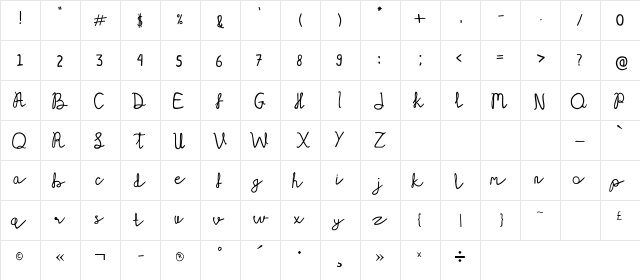
Serelo Perdana Regular
Design Context for Serelo Perdana Typeface
Serelo Perdana is a composed and adaptable typeface that performs quietly and consistently across a wide range of design contexts.